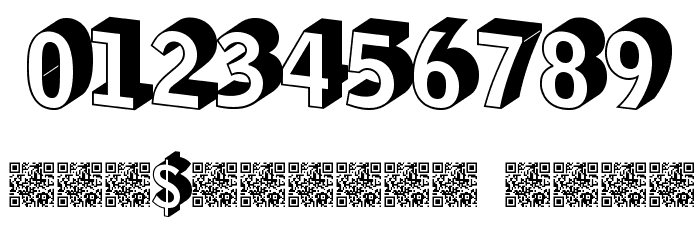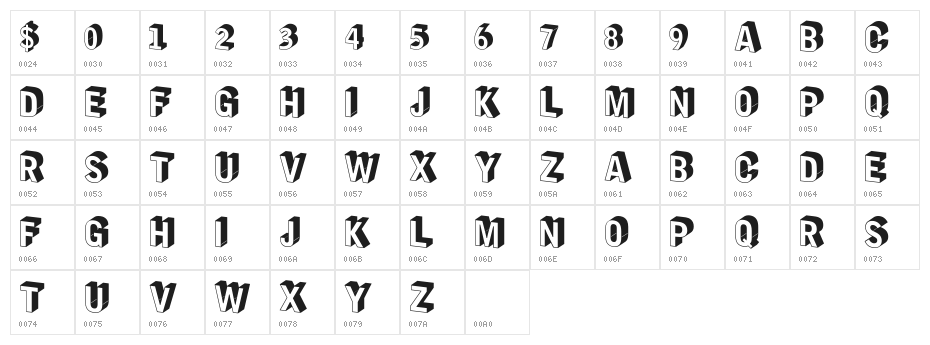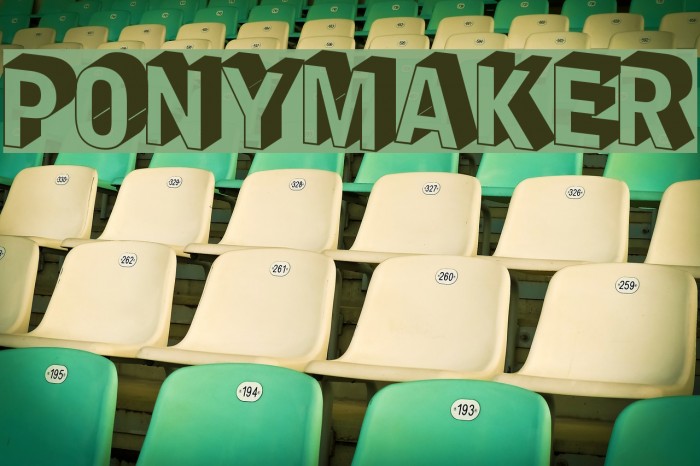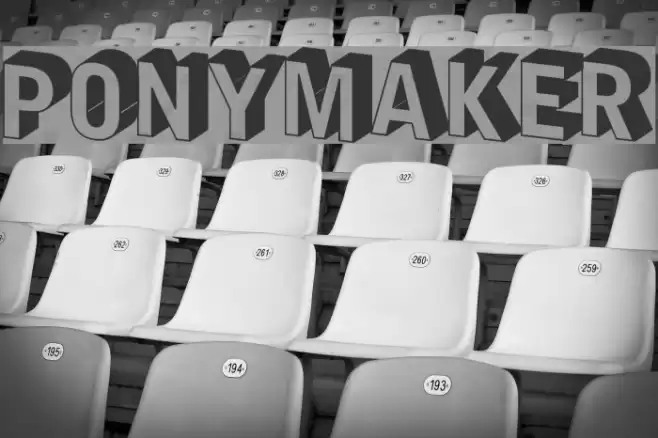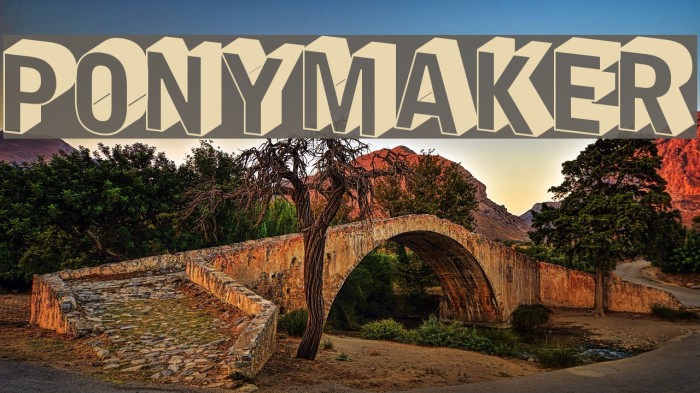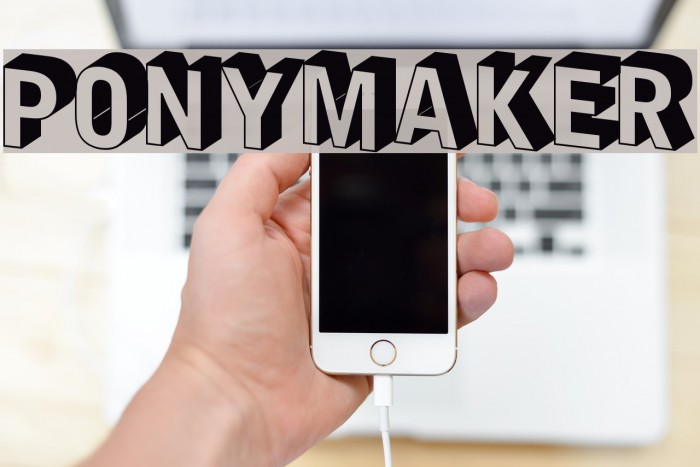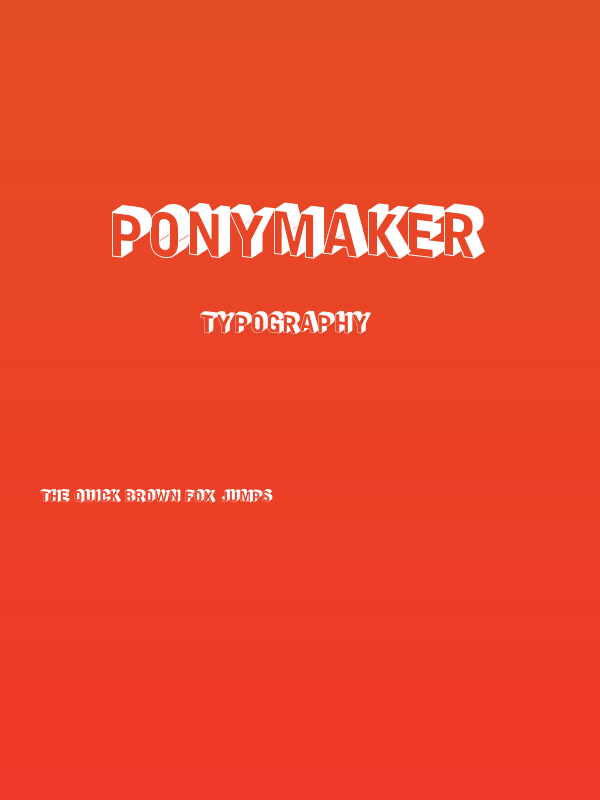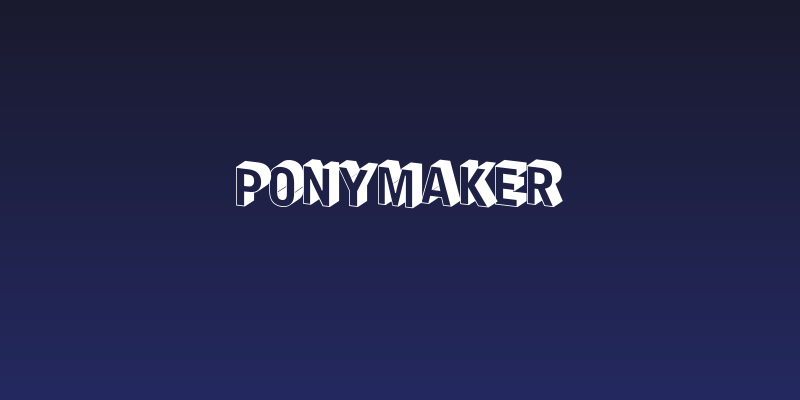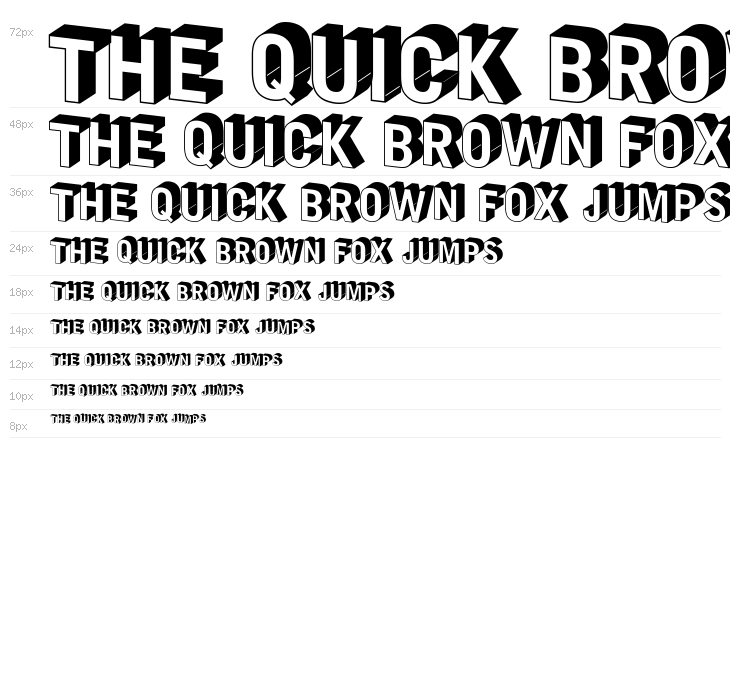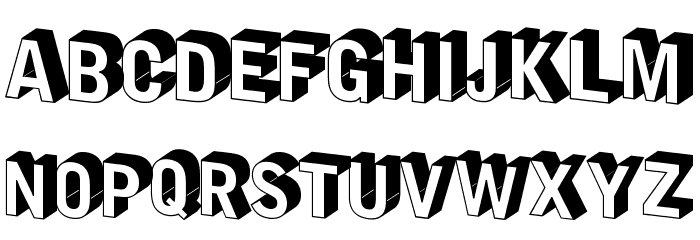
PonyMaker Font
PonyMaker Description
This font features a bold, three-dimensional design with a strong, impactful presence. Each character is crafted with a shadow effect that gives it a striking, standout look, ideal for grabbing attention. The uppercase letters are uniform in height, with clean, sharp edges that emphasize its modern style. The numbers and special characters maintain the same boldness and dimensionality, ensuring consistency across all text. This font is perfect for projects that require a dynamic and eye-catching aesthetic.
Proposed ProjectsIdeal for posters, headlines, branding, and any design that needs a bold statement.